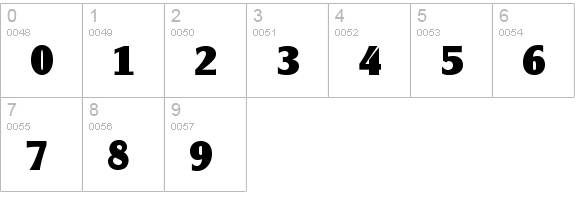
Cleargothic-ExtraBold Font Details
Cleargothic-ExtraBold is an extra-heavy, attention-grabbing variant in the Cleargothic typeface family \xE2\x80\x94 well suited to high-impact headlines, posters, and bold branding.